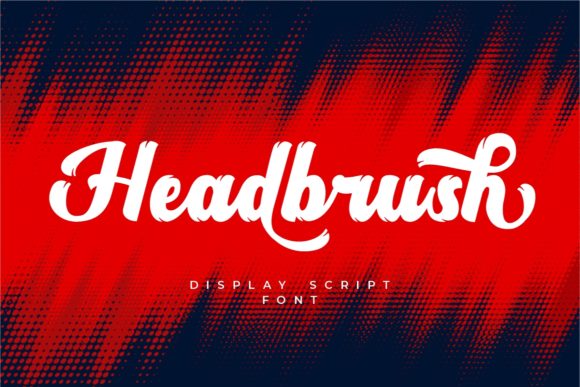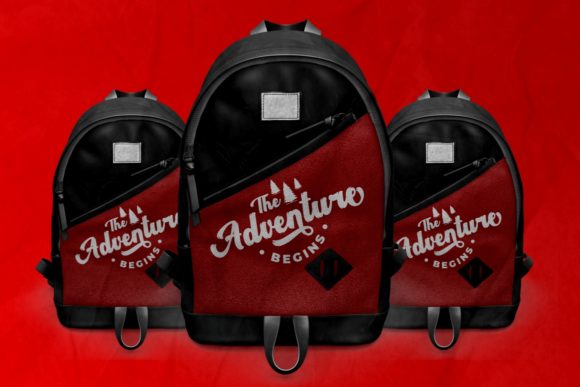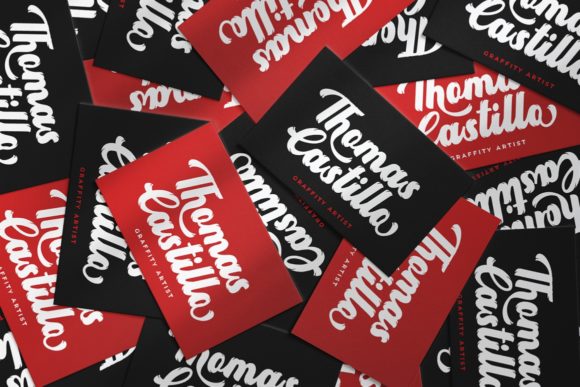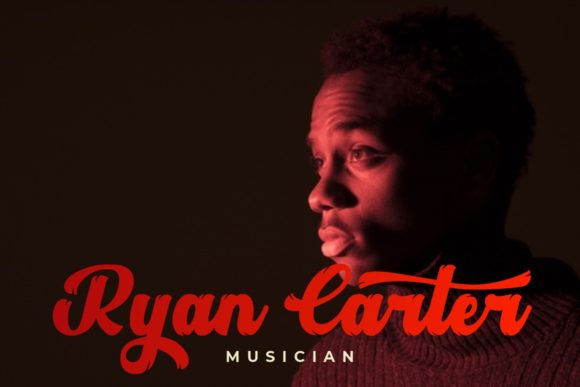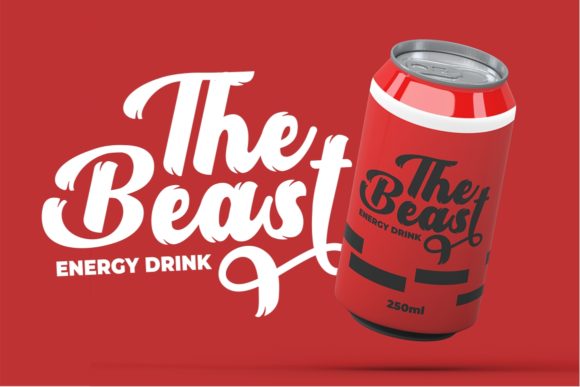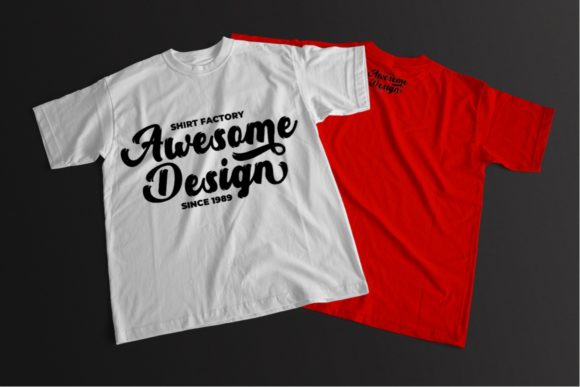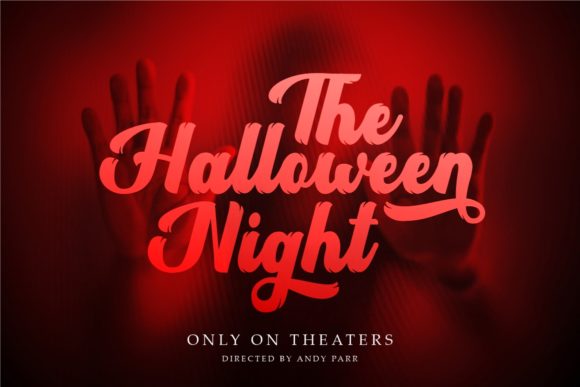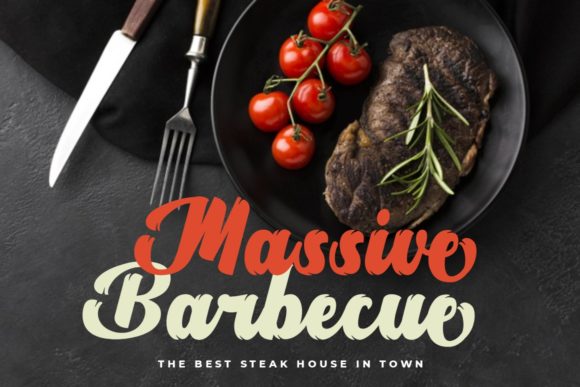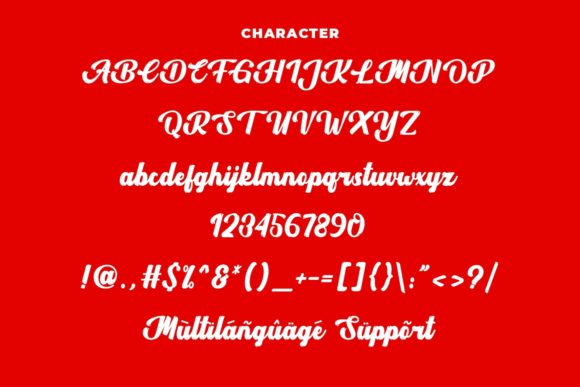
Headbrush Font
About Headbrush Font
Headbrush feels equally flowing and timeless. It looks lovely on wedding invitations, thank you cards, quotes, greeting cards, logos, business cards and every other design which needs a handwritten touch.